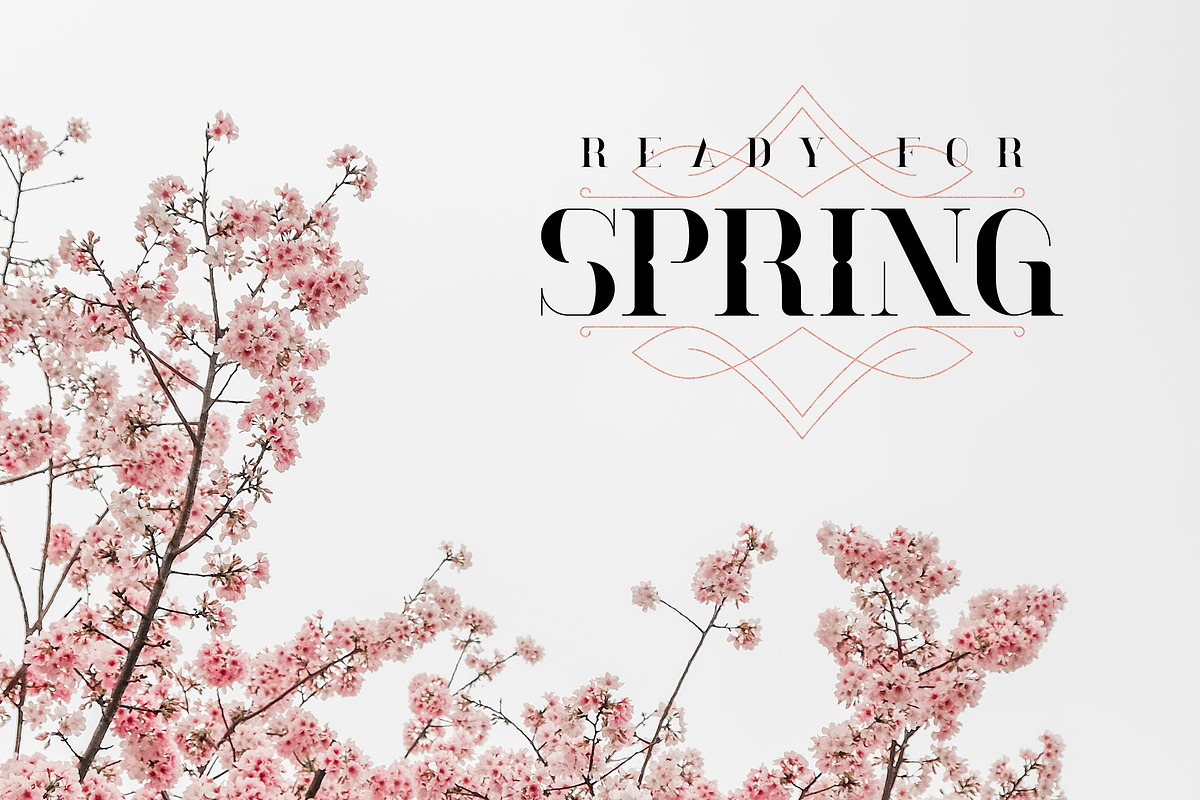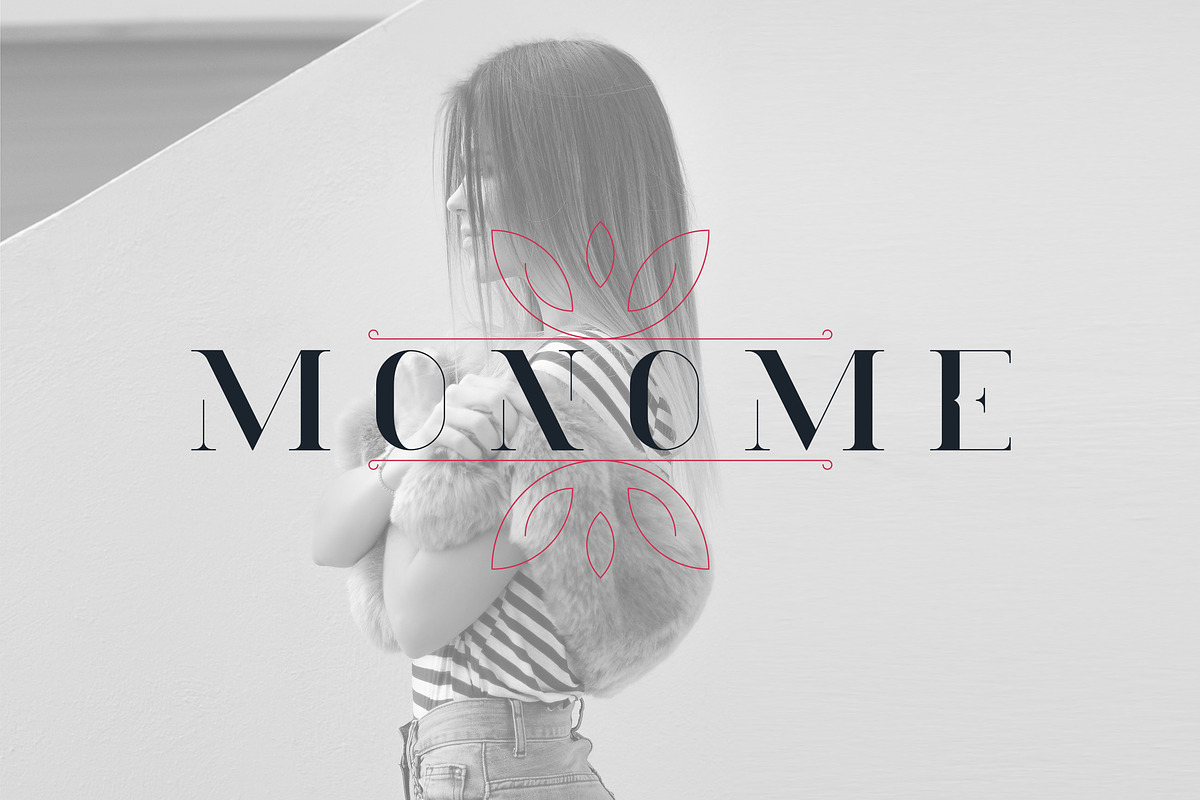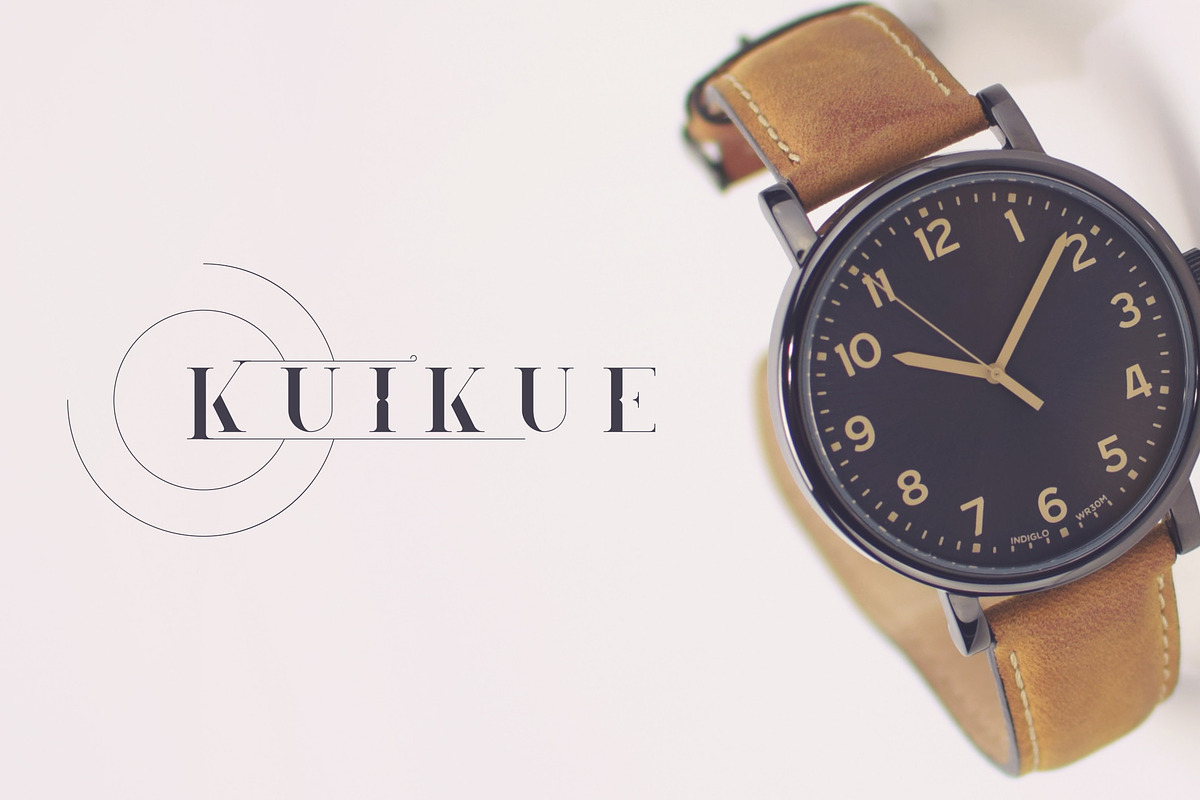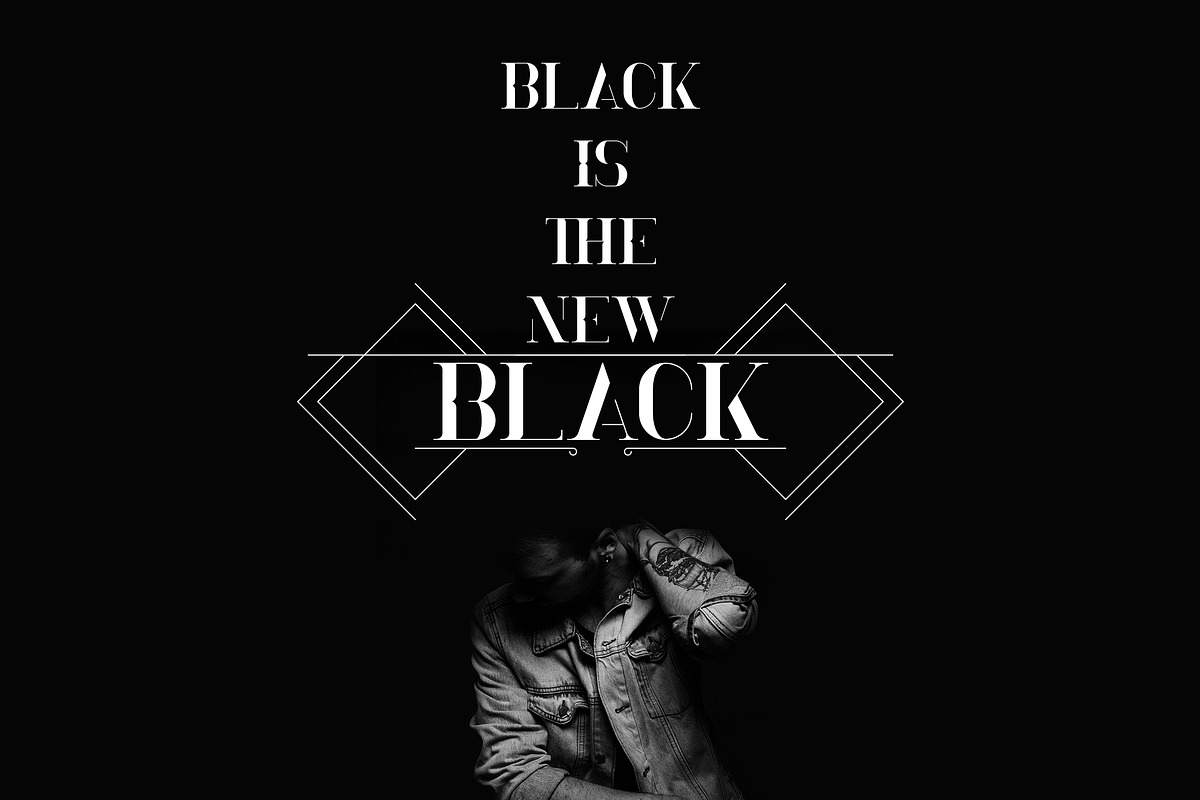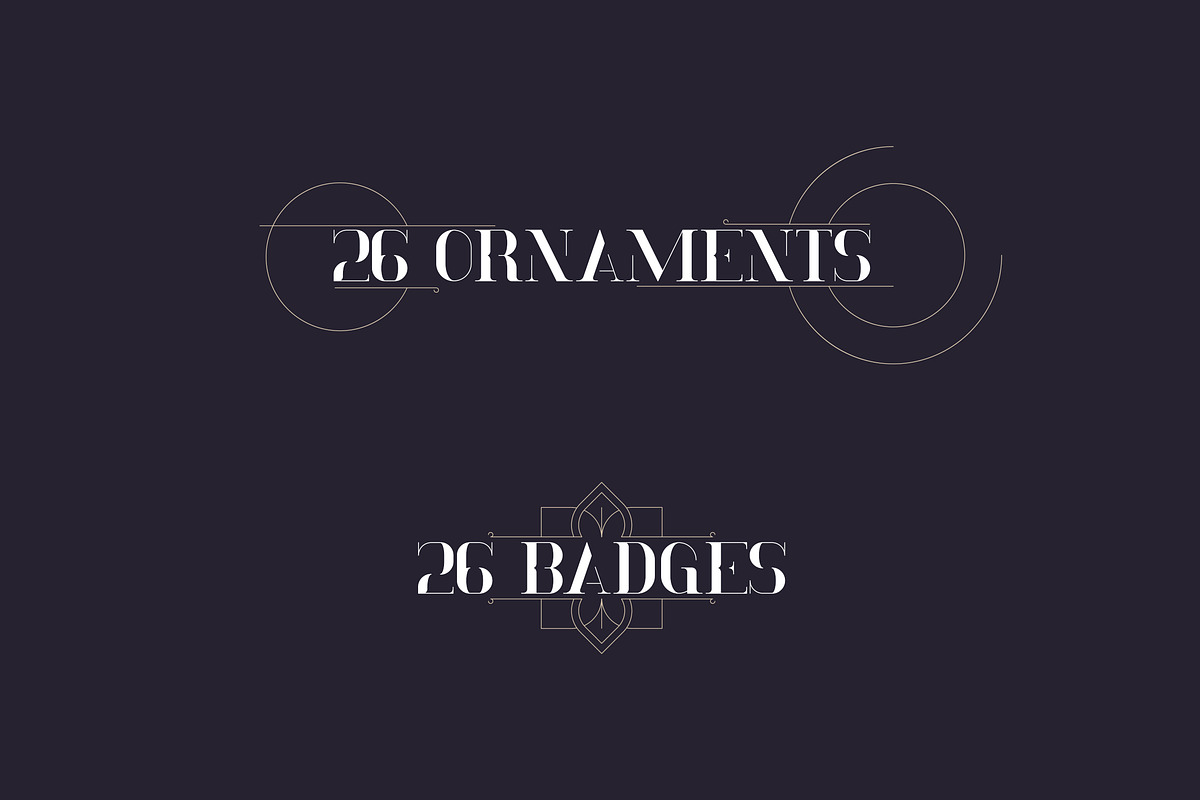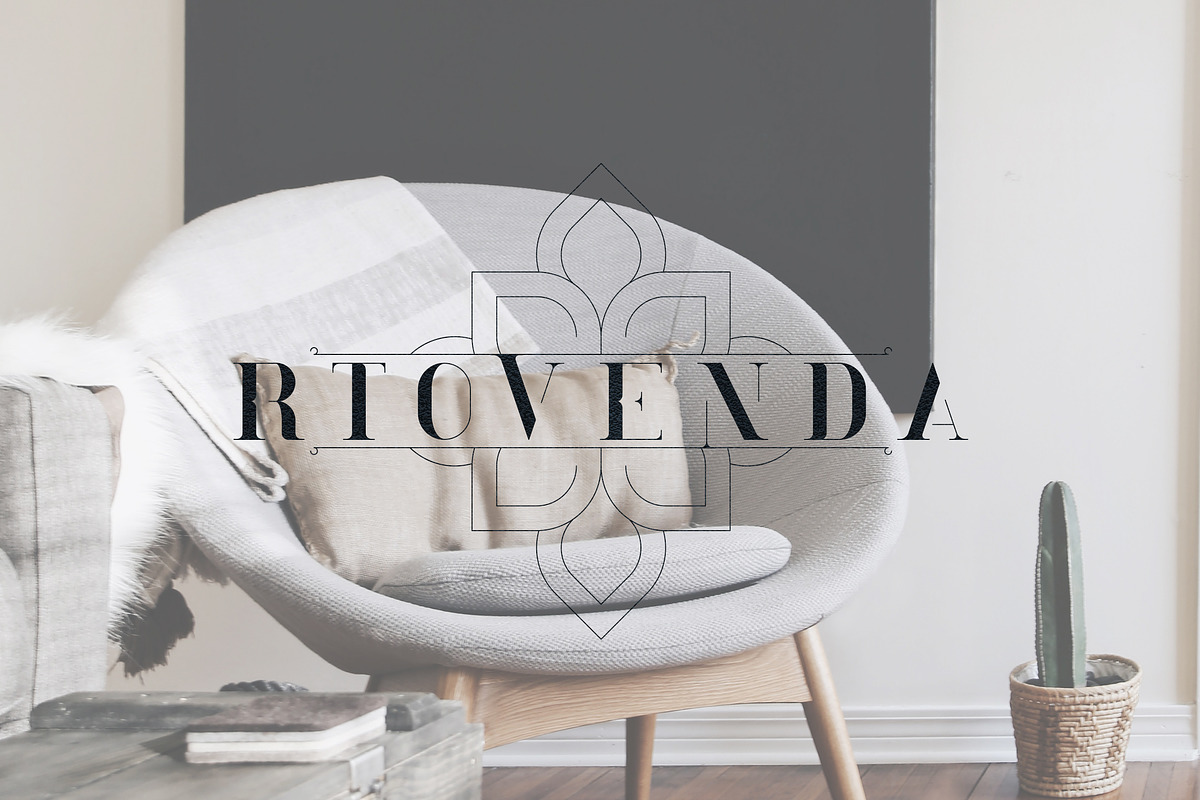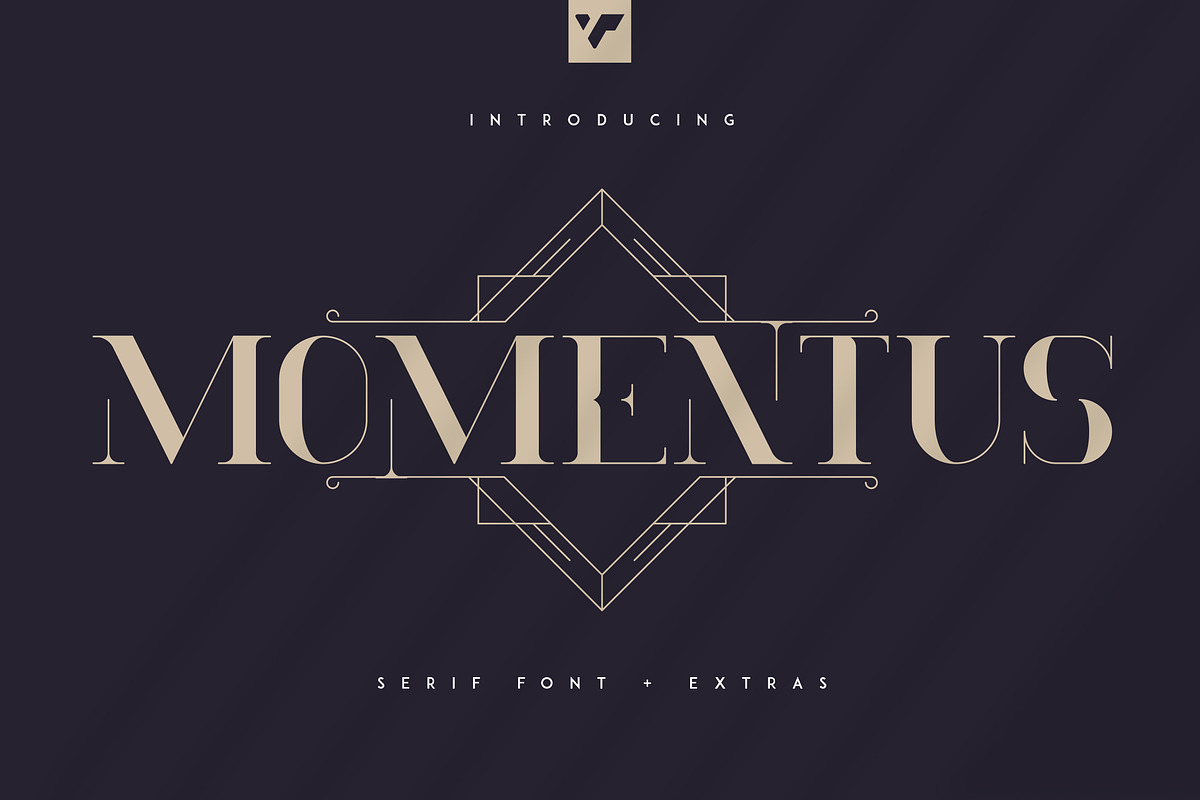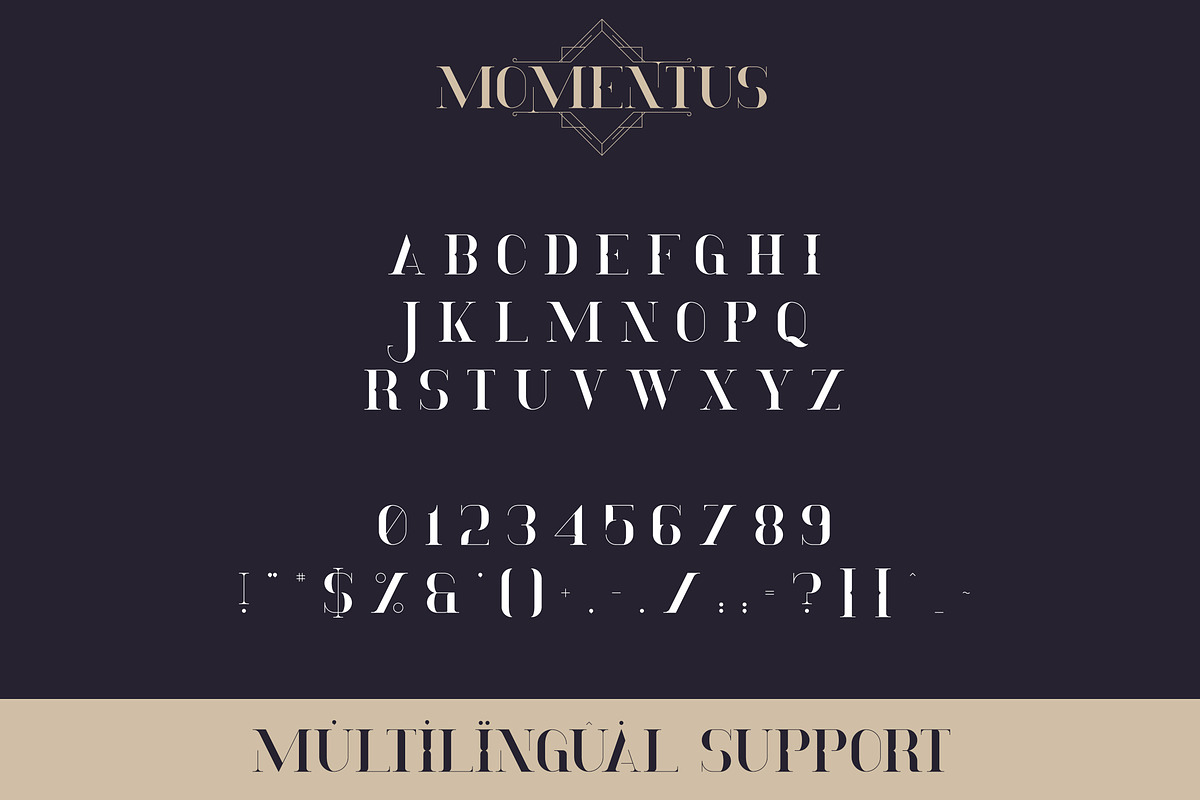
Momentus serif font + Extras
Momentus is elegant, clean font with 26 ornaments, 26 emblems, alternative and ligature glyphs, and multilingual support. It's a very versatile font that works great in large and small sizes.
Momentus is perfect for branding projects, home-ware designs, product packaging, magazine headers - or simply as a stylish text overlay to any background image.
Uppercase,lowercase, numeral,punctuation & Symbol